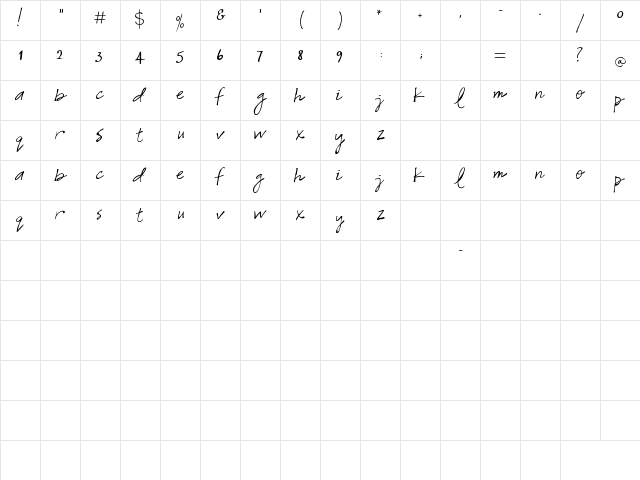
Snowshoe Regular
Design Context for Snowshoe
Snowshoe is a composed and adaptable typeface that performs quietly and consistently across a wide range of design contexts.
Pro Tip: Use Snowshoe in both headline and body roles to test its range before committing to a single application.